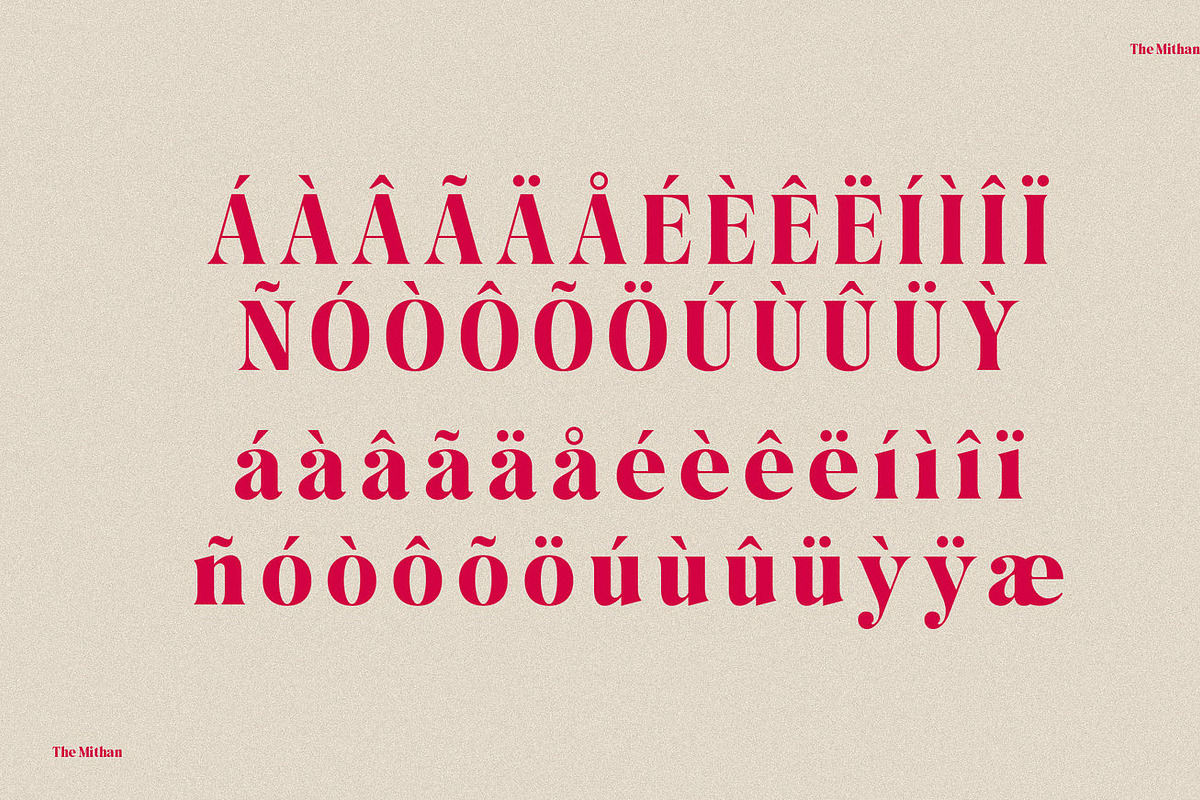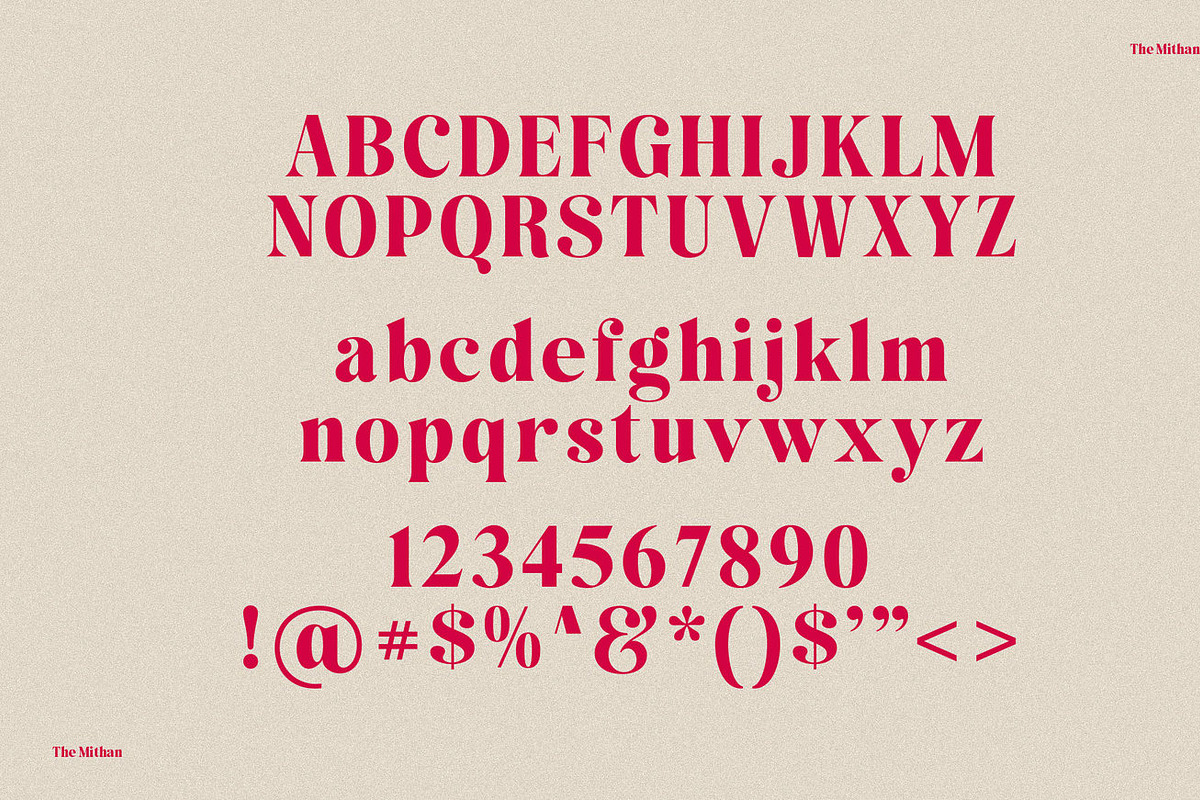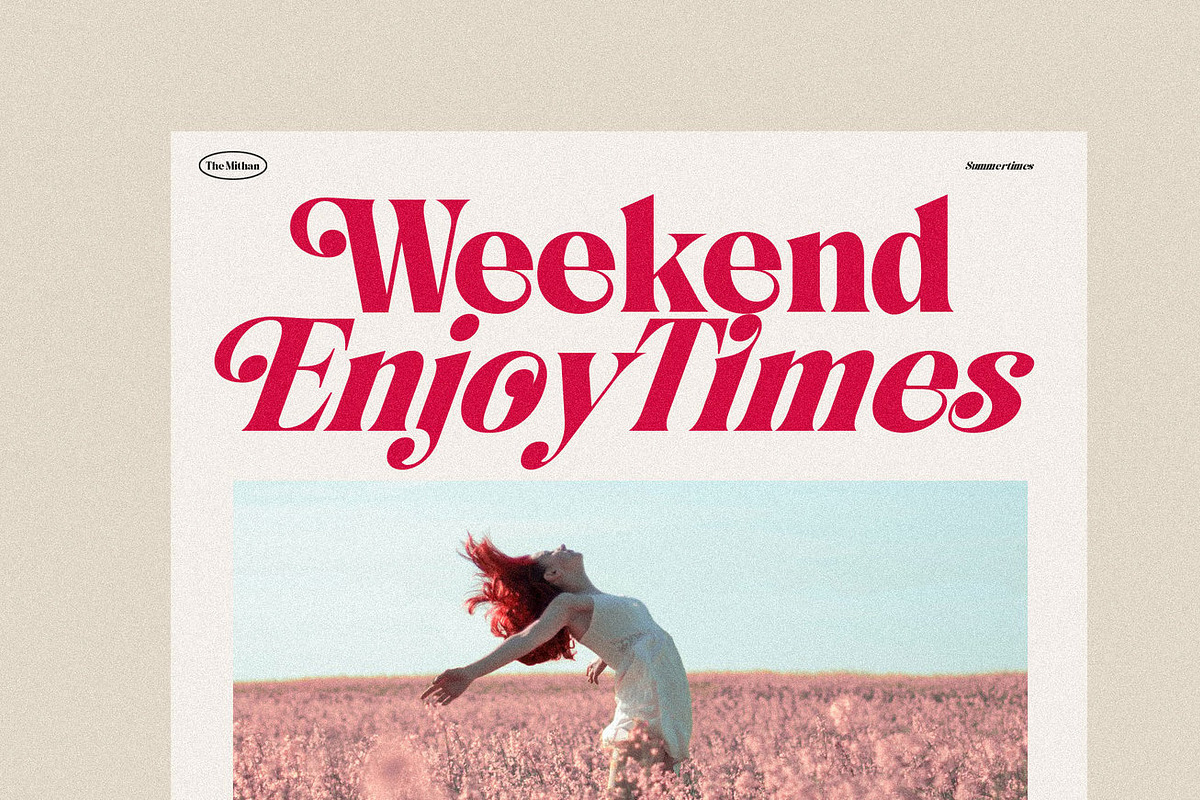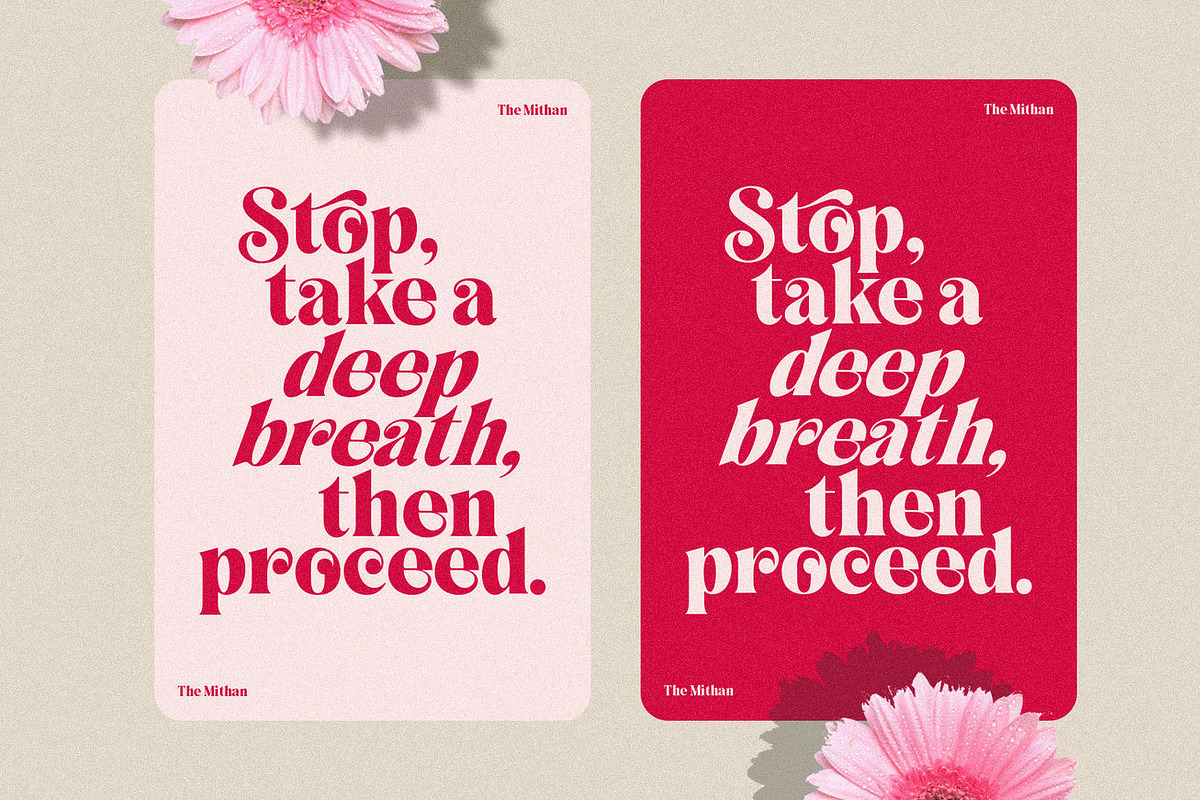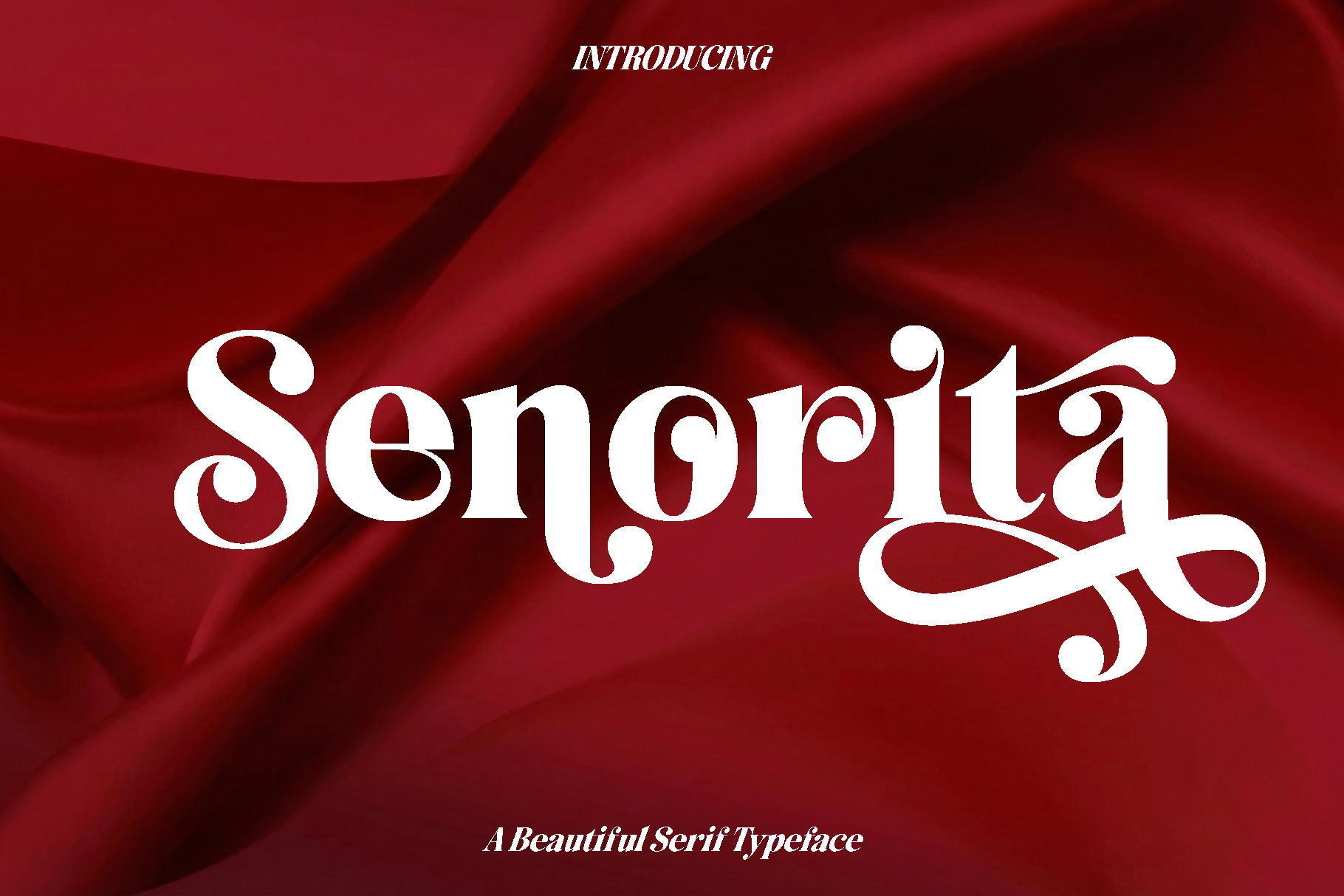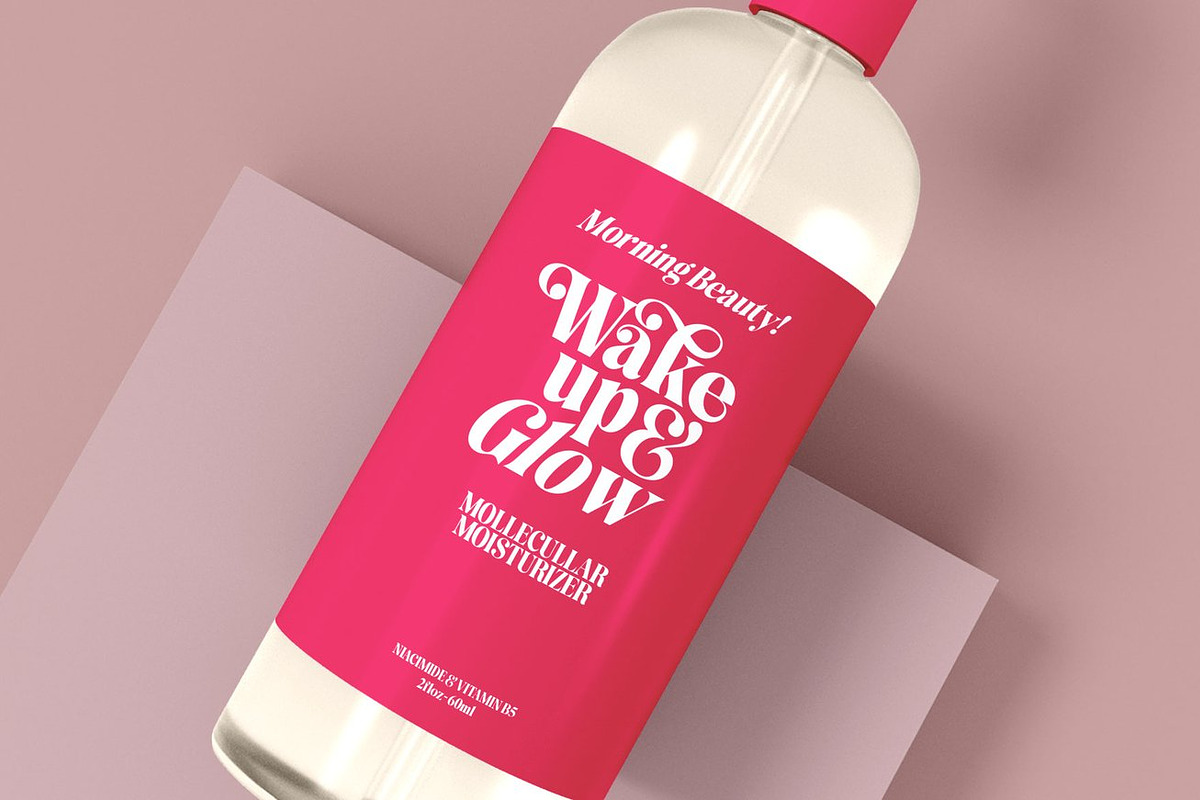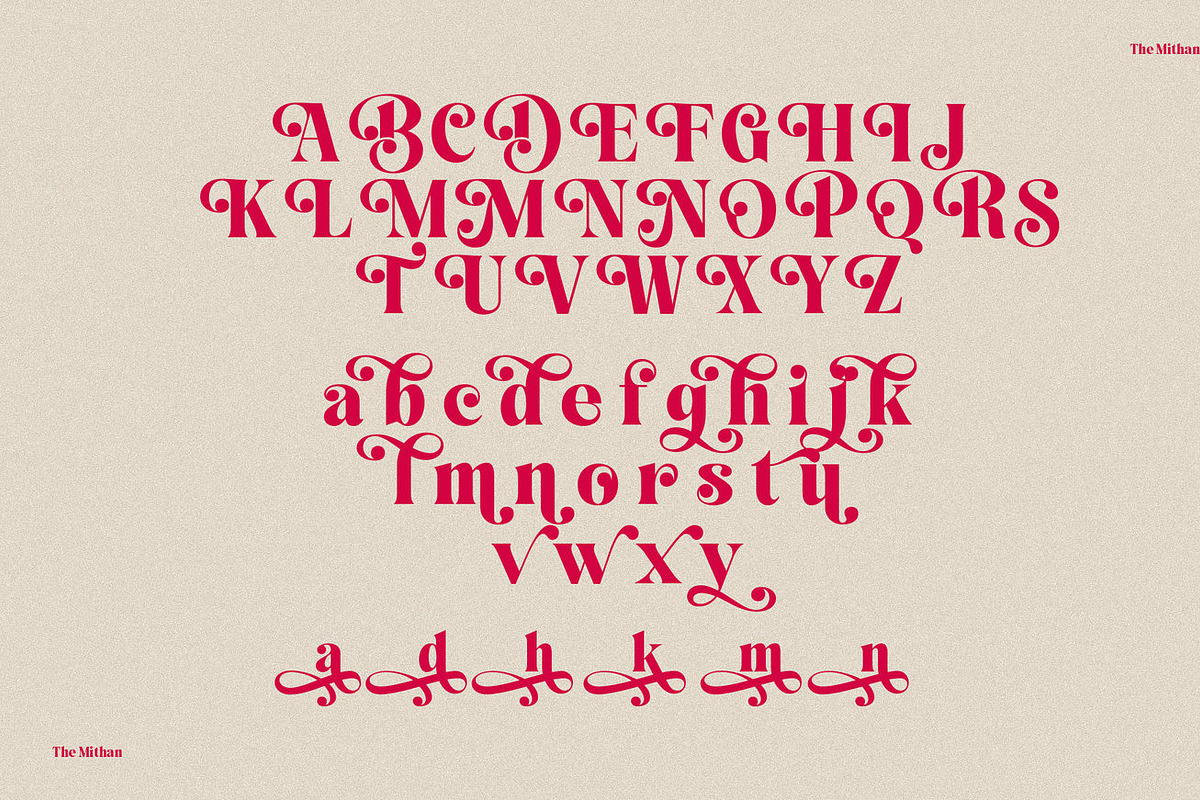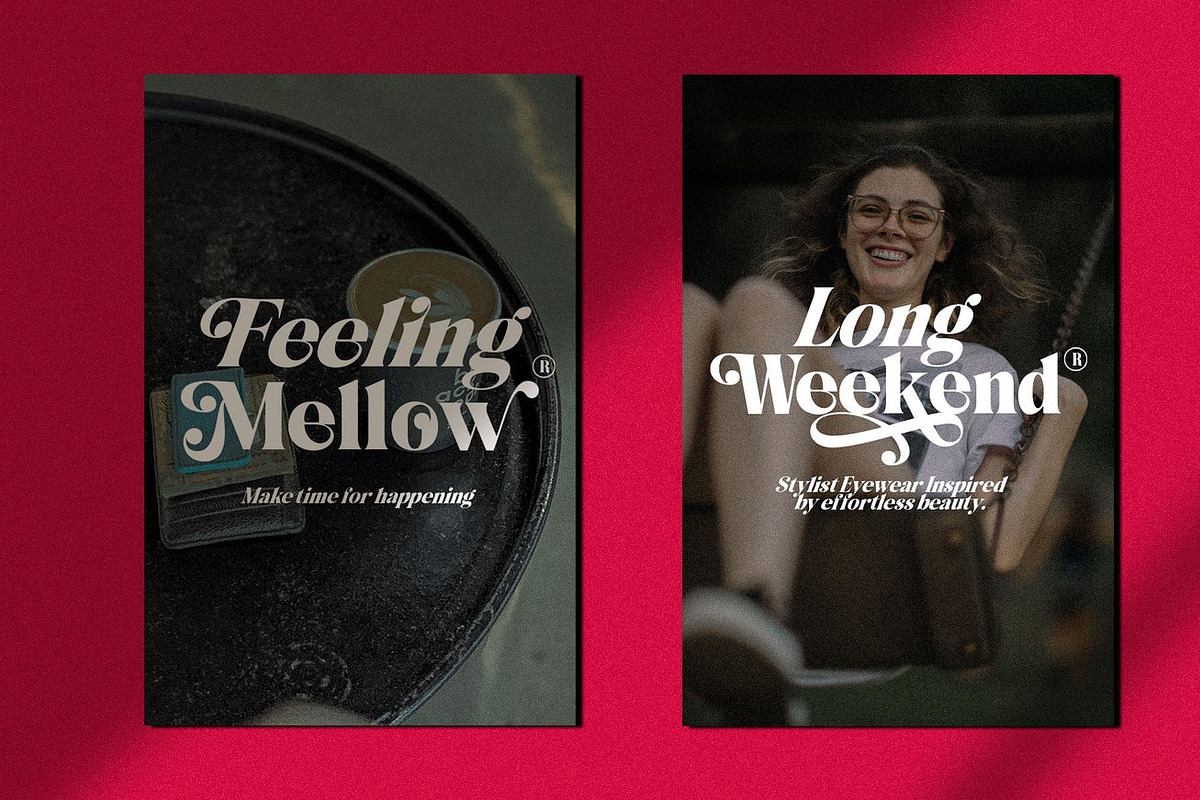
Senorita - Modern Serif Font
Senorita is an elegant modern vintage font created to blend classic charm with contemporary sophistication. Inspired by graceful lettering styles and timeless design, Senorita carries a refined personality that feels stylish, warm, and expressive. Its beautifully shaped letterforms and subtle slanted version add movement and character, giving your typography a distinctive and fashionable presence.
This versatile typeface performs beautifully in both large display settings and smaller text applications. Senorita shines in branding projects, logo design, product packaging, magazine headers, social media visuals, and elegant text overlays on photography. Its balanced proportions and smooth flow make every word feel polished while maintaining readability and visual harmony.
Senorita evokes a feeling of confidence, elegance, and creative flair. It is ideal for designers who want to communicate style, beauty, and a touch of vintage inspiration without losing a modern edge. Whether your project leans toward luxury, lifestyle, fashion, or editorial themes, Senorita adapts effortlessly and enhances the overall aesthetic.
Senorita Font Features:
• Uppercase and lowercase characters
• Numerals and functional symbols
• Stylistic character details
• Slanted version included
• Multilingual support
• OpenType features